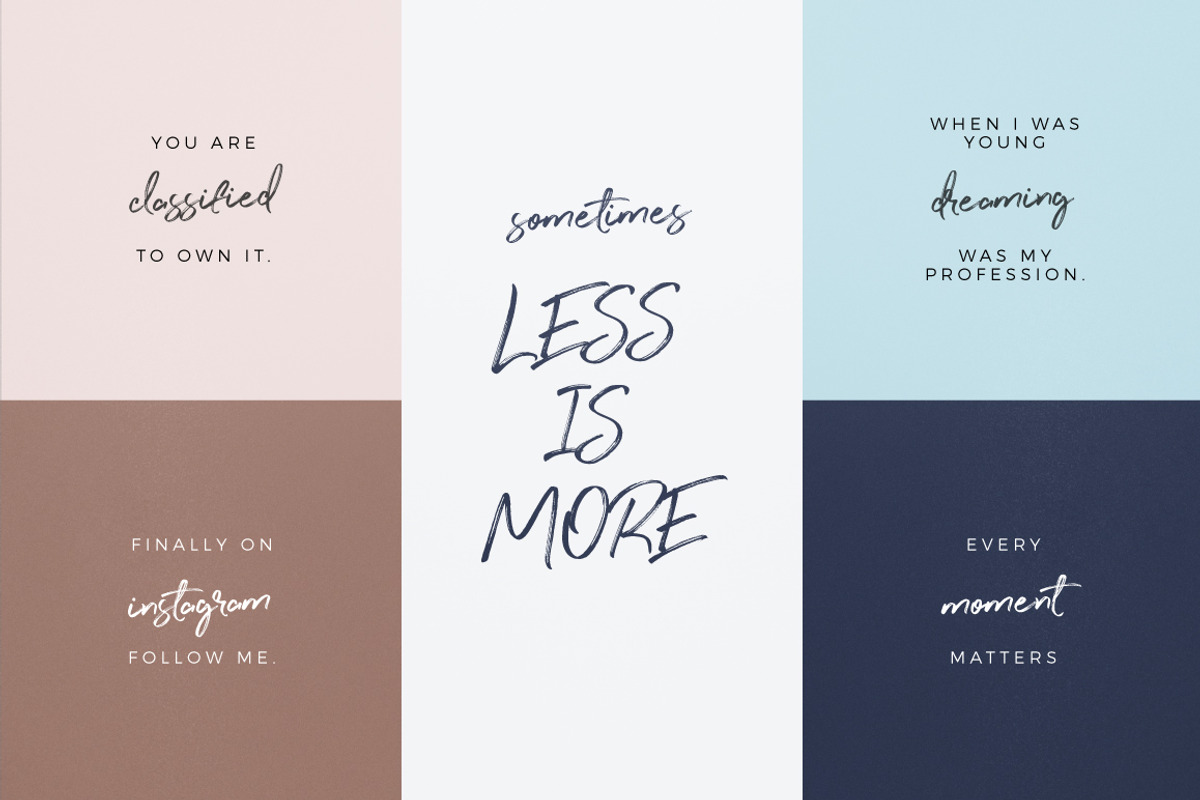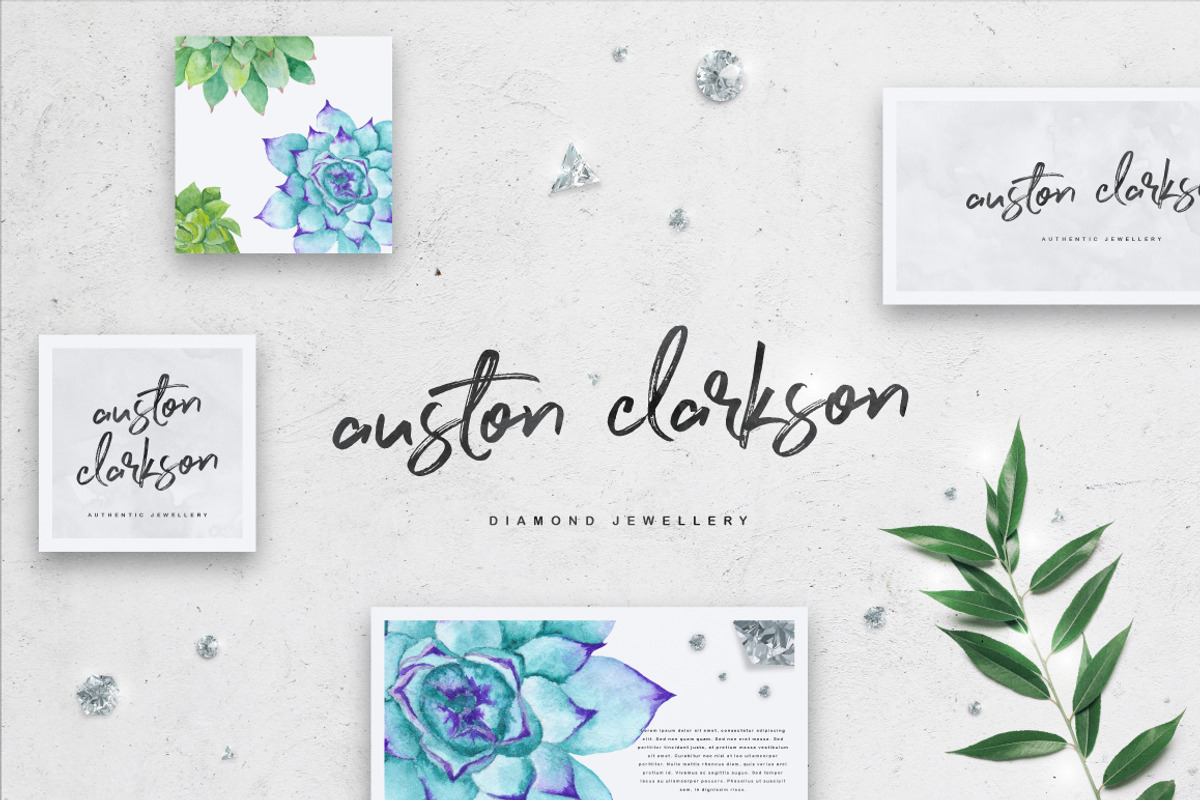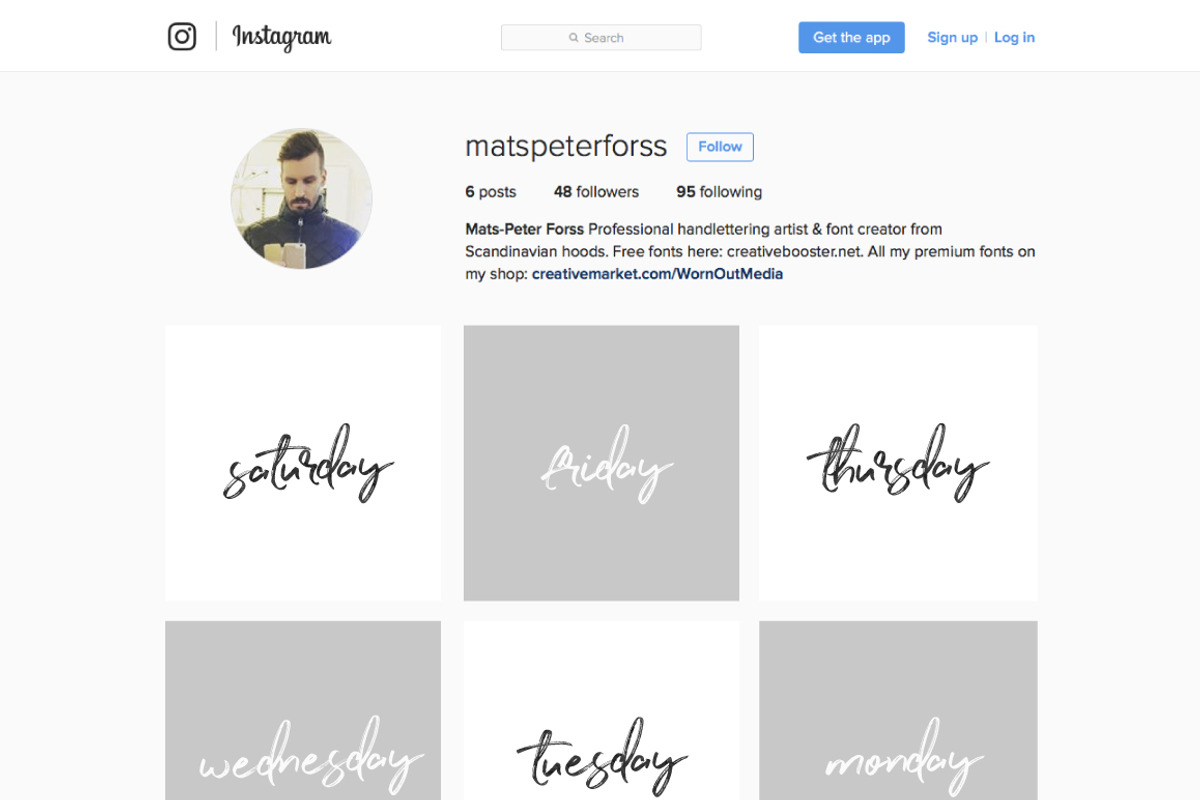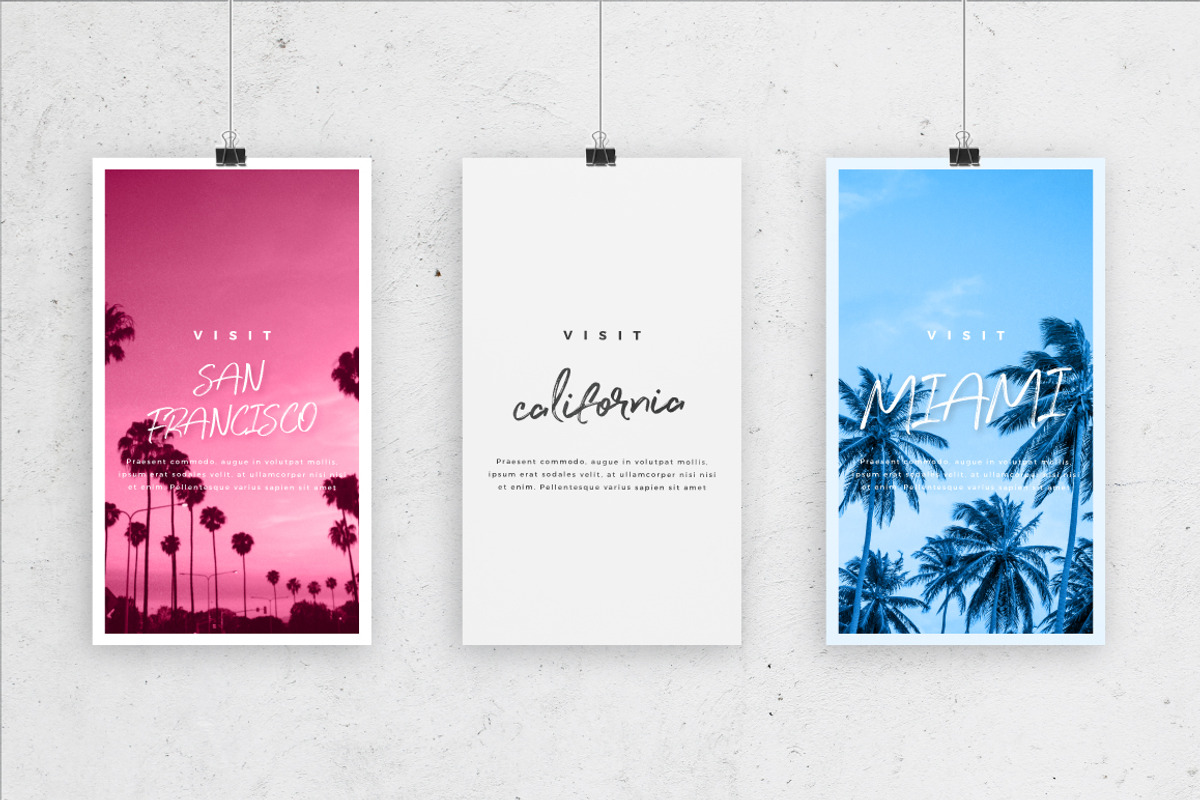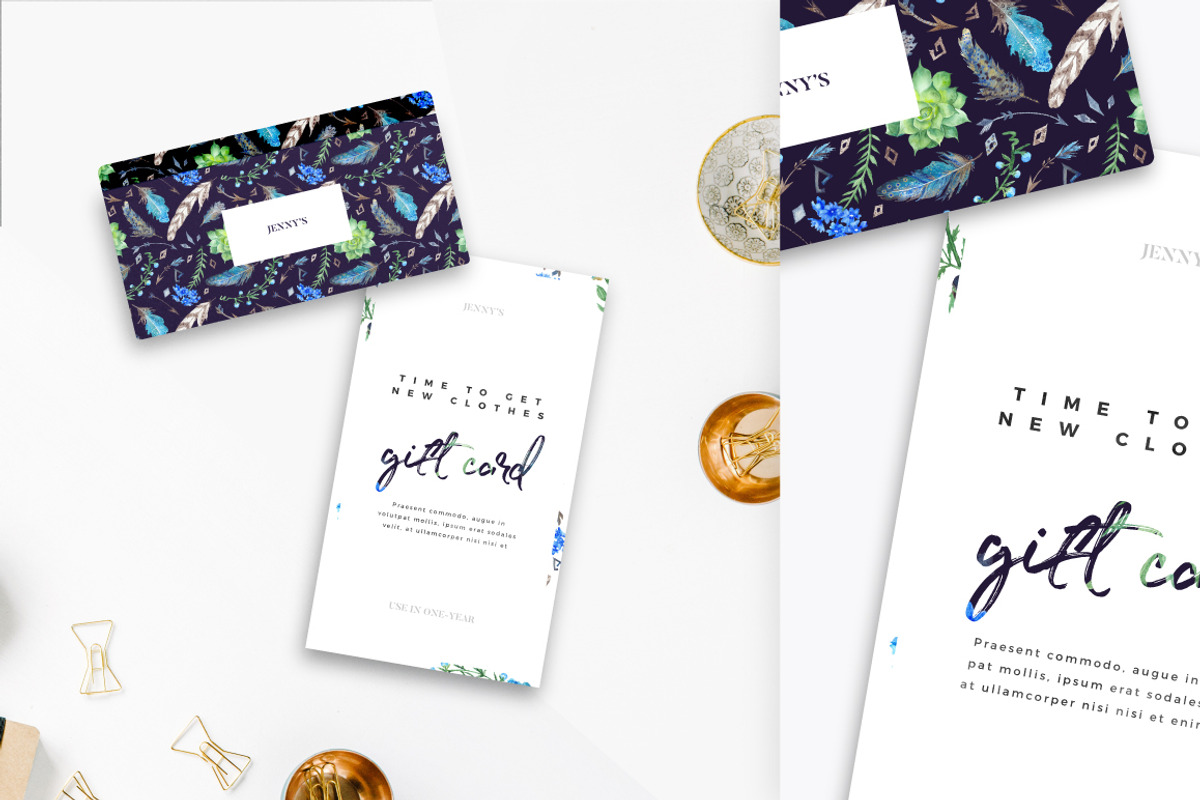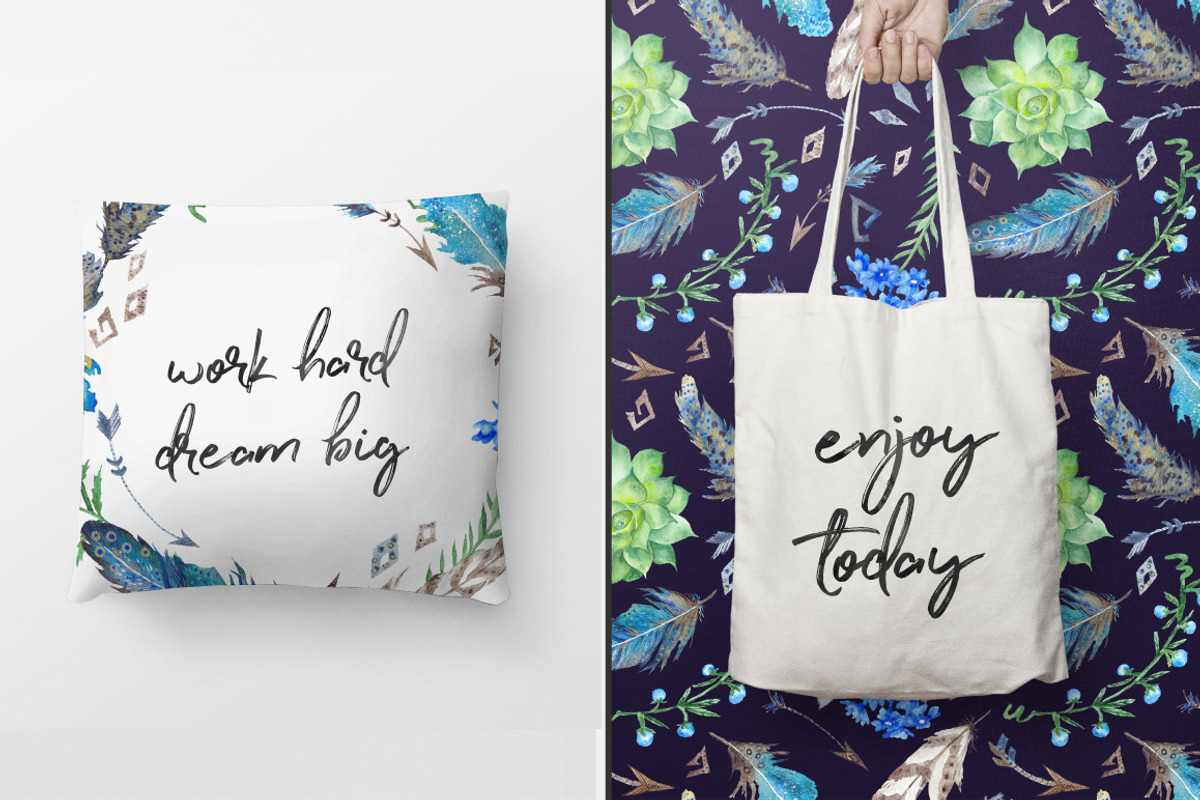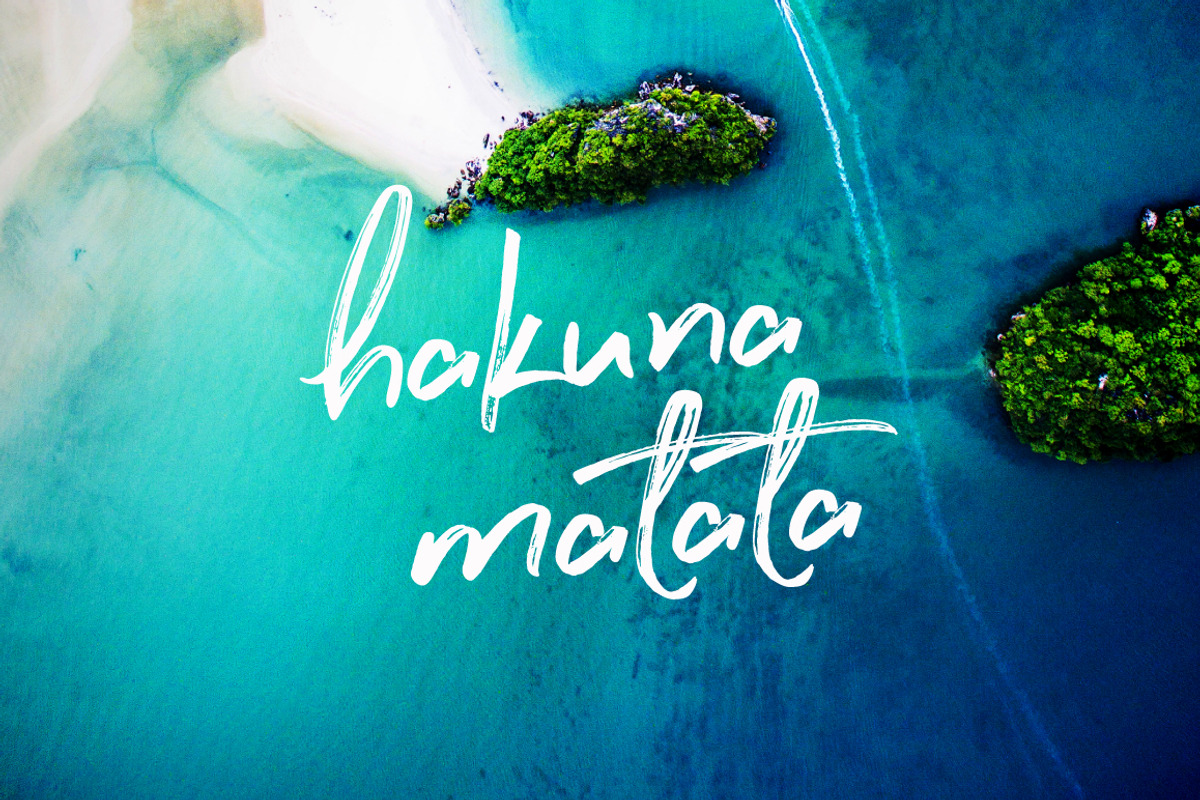
Perfect Sunset Typeface
Perfect Sunset Typeface by Mats-Peter Forss is a font selected for branding, posters, packaging, typography.
- Uppercase characters works perfectly with lowercase, but they are also made to work as a ALL-CAPS font alone so you actually get two fonts f
- I've added alternates for the lowercase characters so you can get the instant authenticity to your design.
- Alternates for lowercase characters.
- PERFECT SUNSET ALT - Alternates for lowercase characters.
- PERFECT SUNSET CAPS - Uppercase characters as one font to make it easier to use it in your preferred software.
Why Perfect Sunset Typeface is worth a look
Perfect Sunset Typeface by Mats-Peter Forss fits naturally into Branding, posters, packaging, typography.